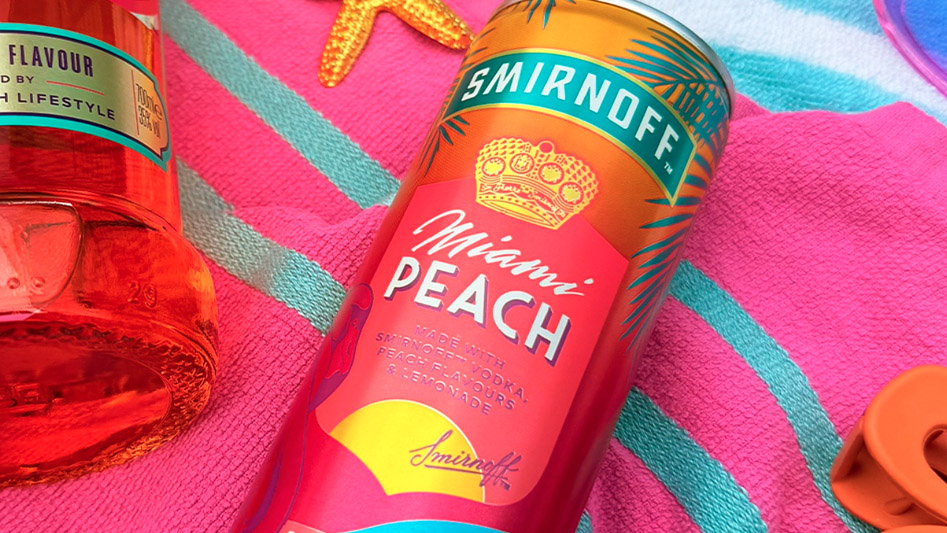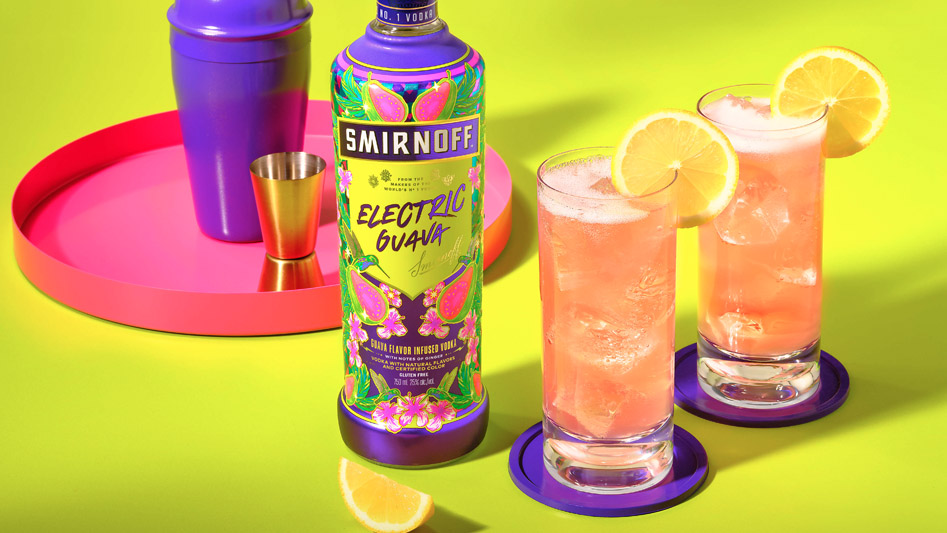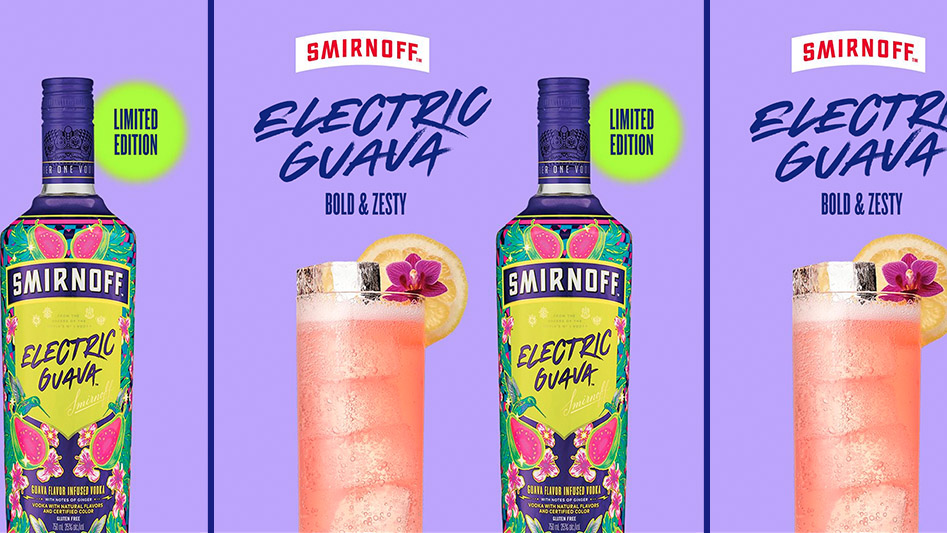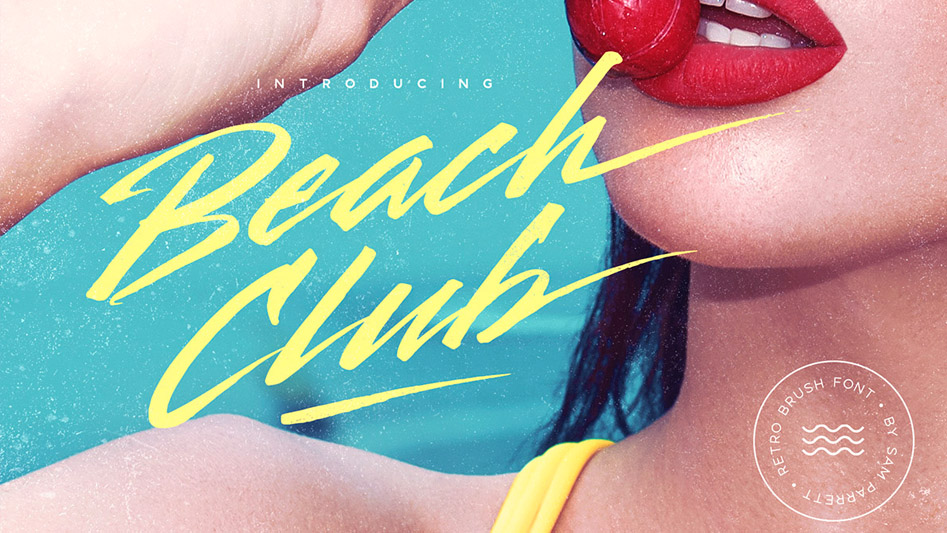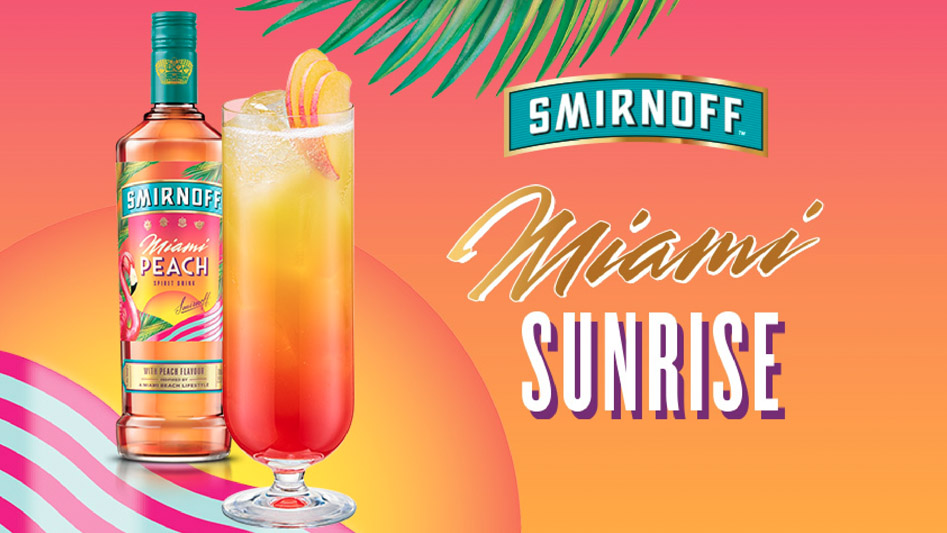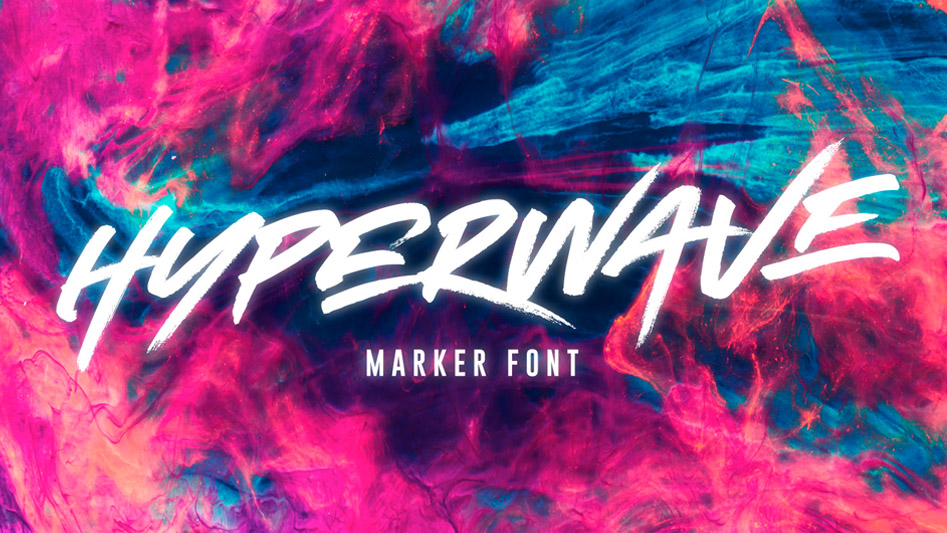
Smirnoff use Set Sail fonts for Limited Edition Drinks
The world’s #1-selling vodka brand Smirnoff needed some big-impact typography for their new limited edition drinks, and looked no further than Set Sail Studios authentic hand-drawn fonts Beach Club and Hyperwave. The fonts fit the brief perfectly for these projects, with Beach Club bringing those… well, beach vibes for the ‘Miami Peach’ flavour and Hyperwave bringing the energy for the ‘Electric Guava’ edition. Looking forward to spotting these on the shelves!